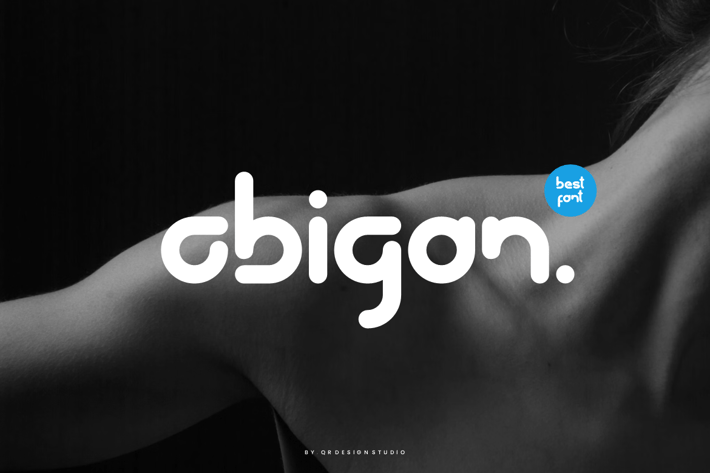
Abigon - Modern Minimal Font
Abigon Font is a sans serif and authentic display font.
+ Uppercase & Lowercase
+ Ligatures & Alternate
+ Numeral & Punctuations
+ Multilingual Support
+ Extended Character Set